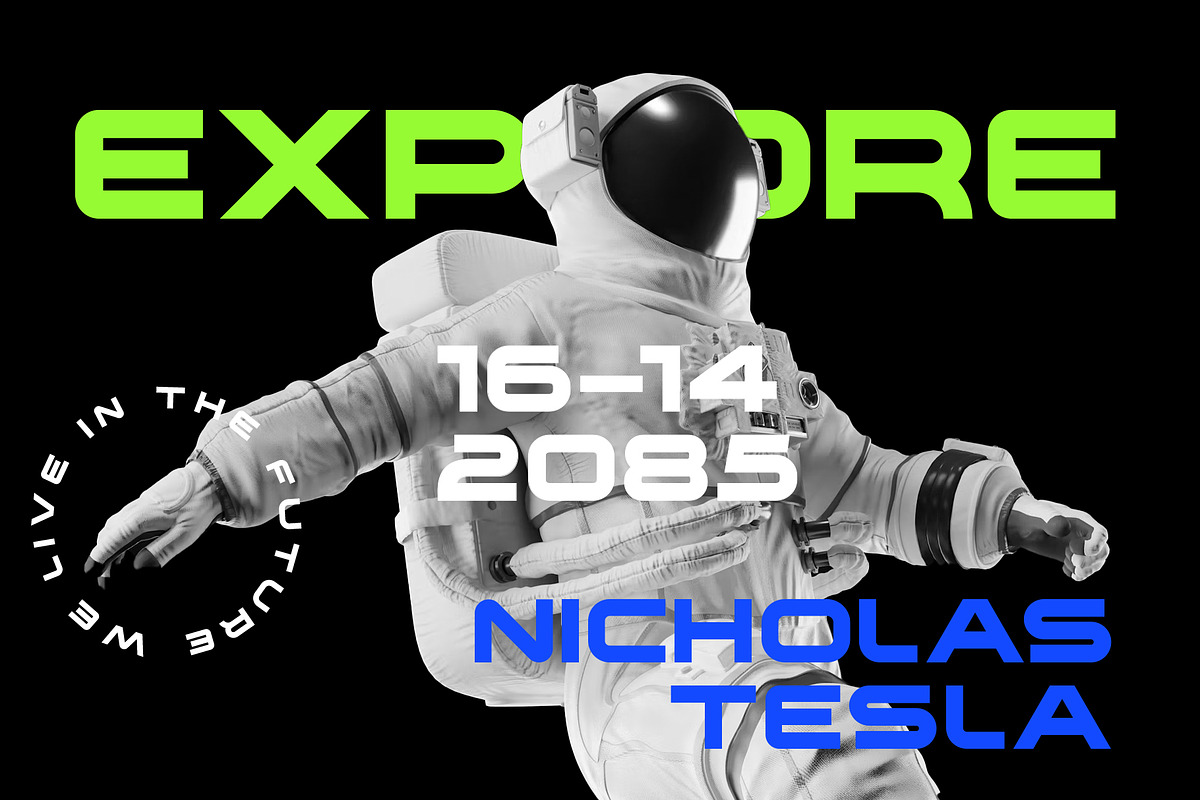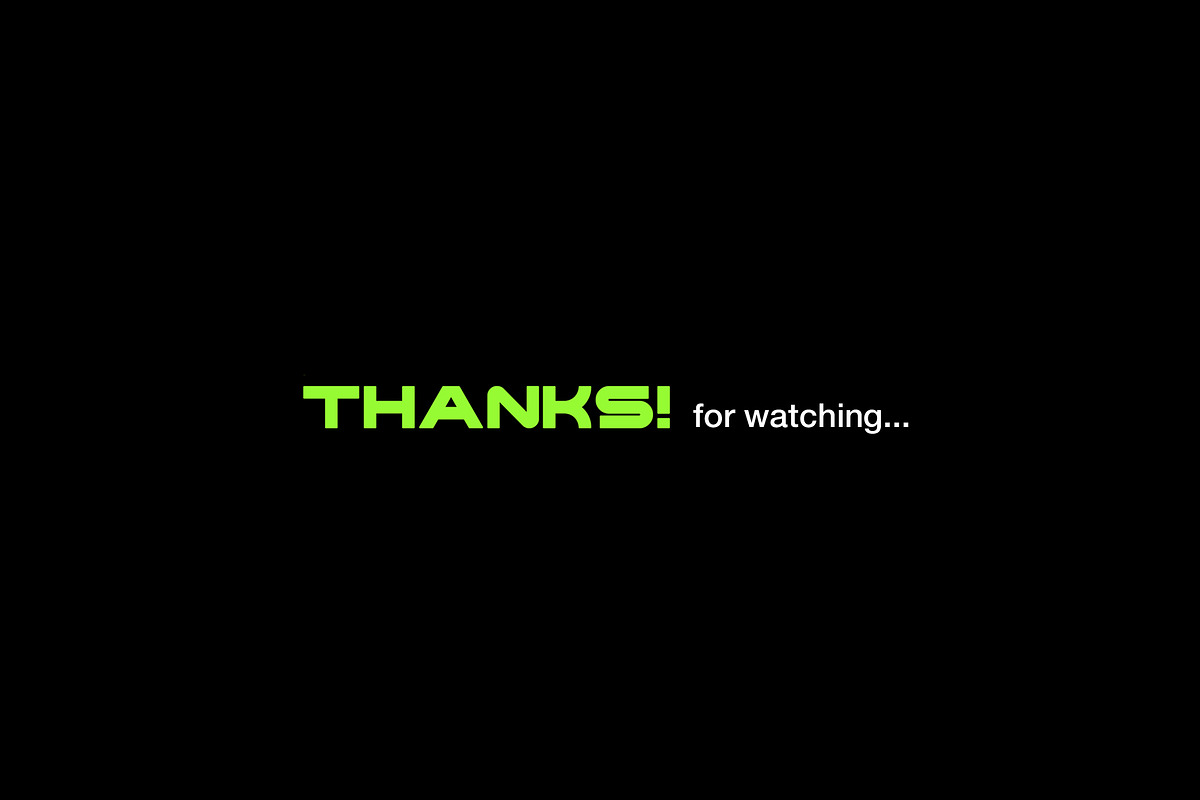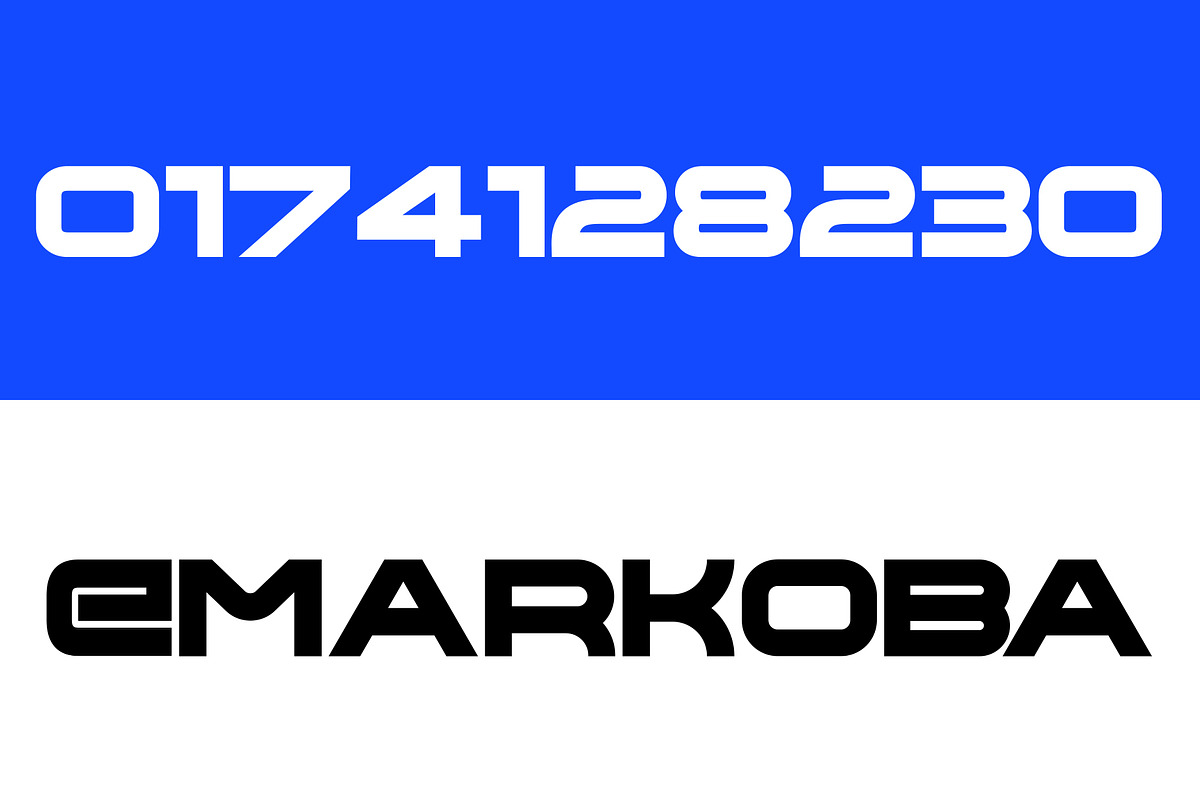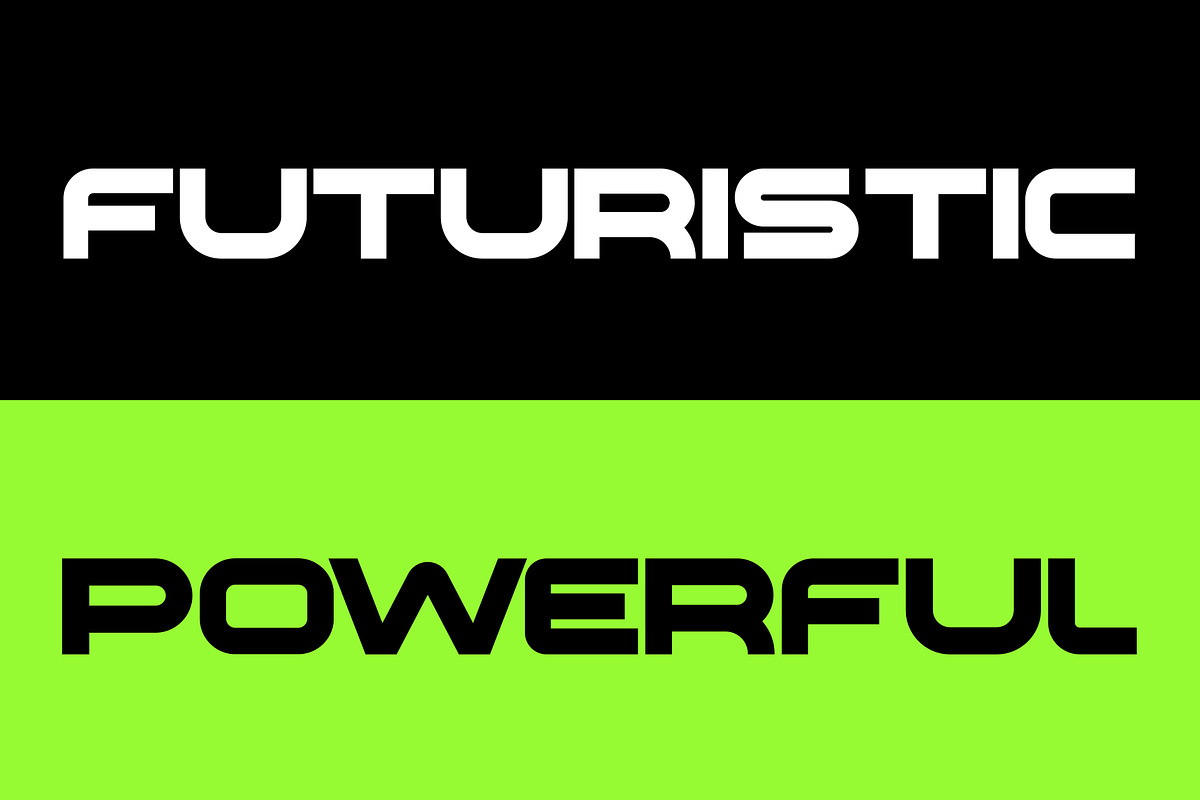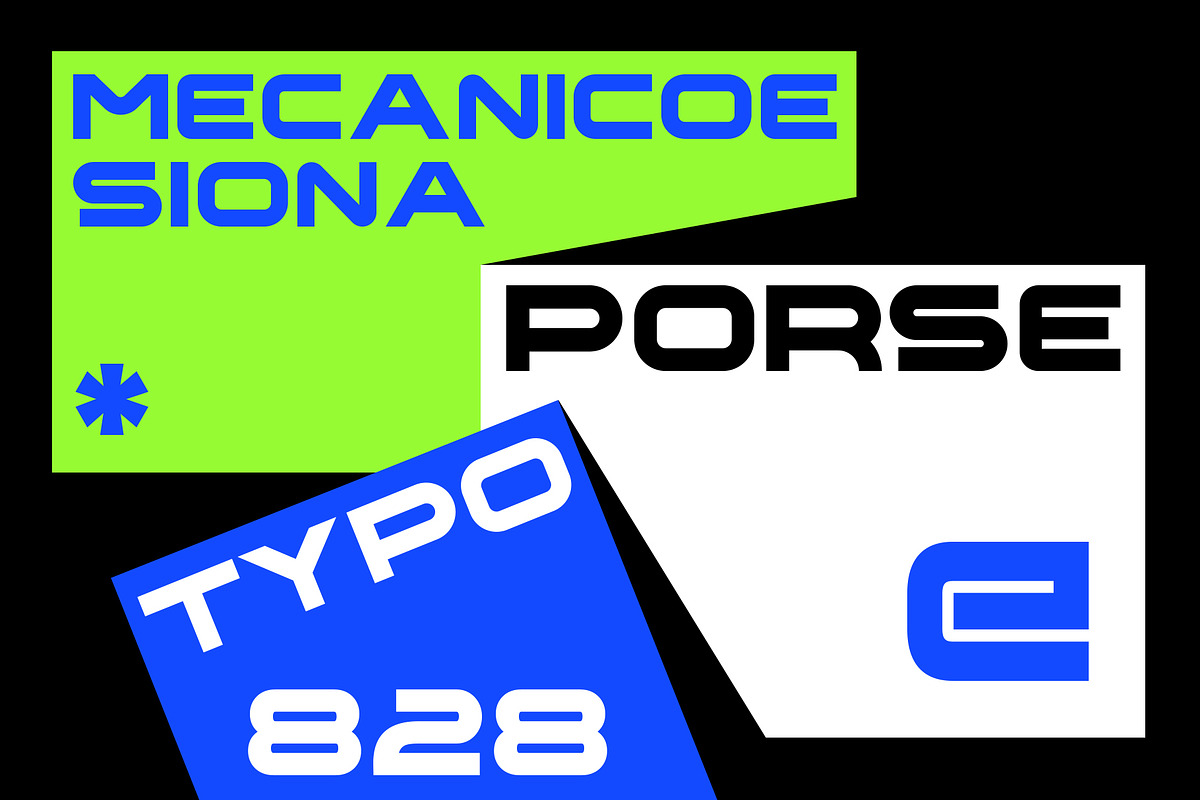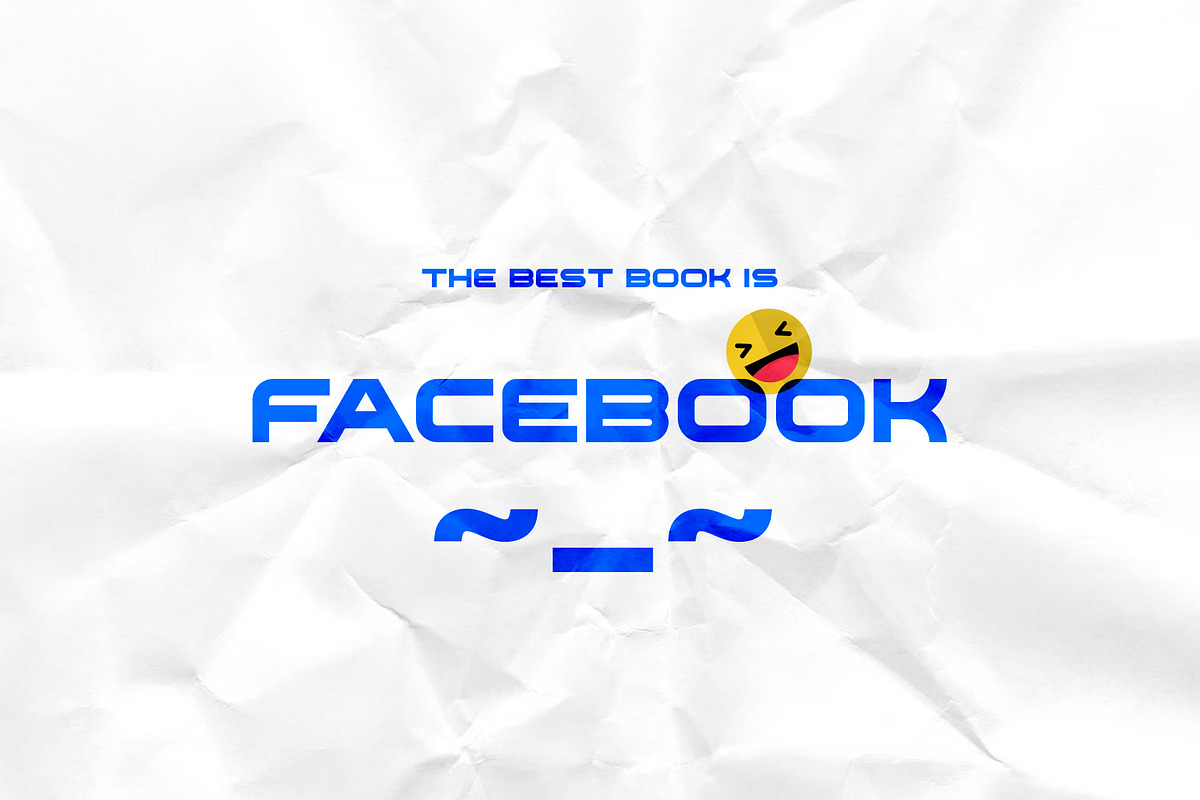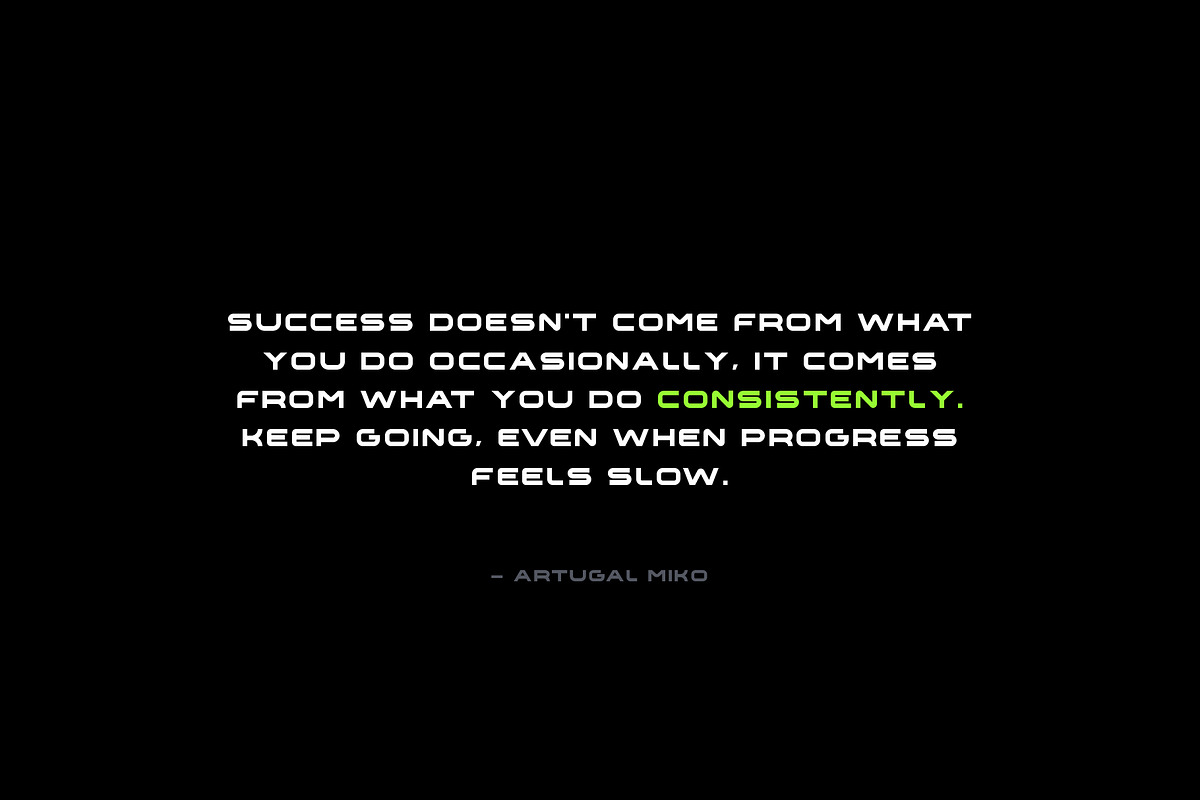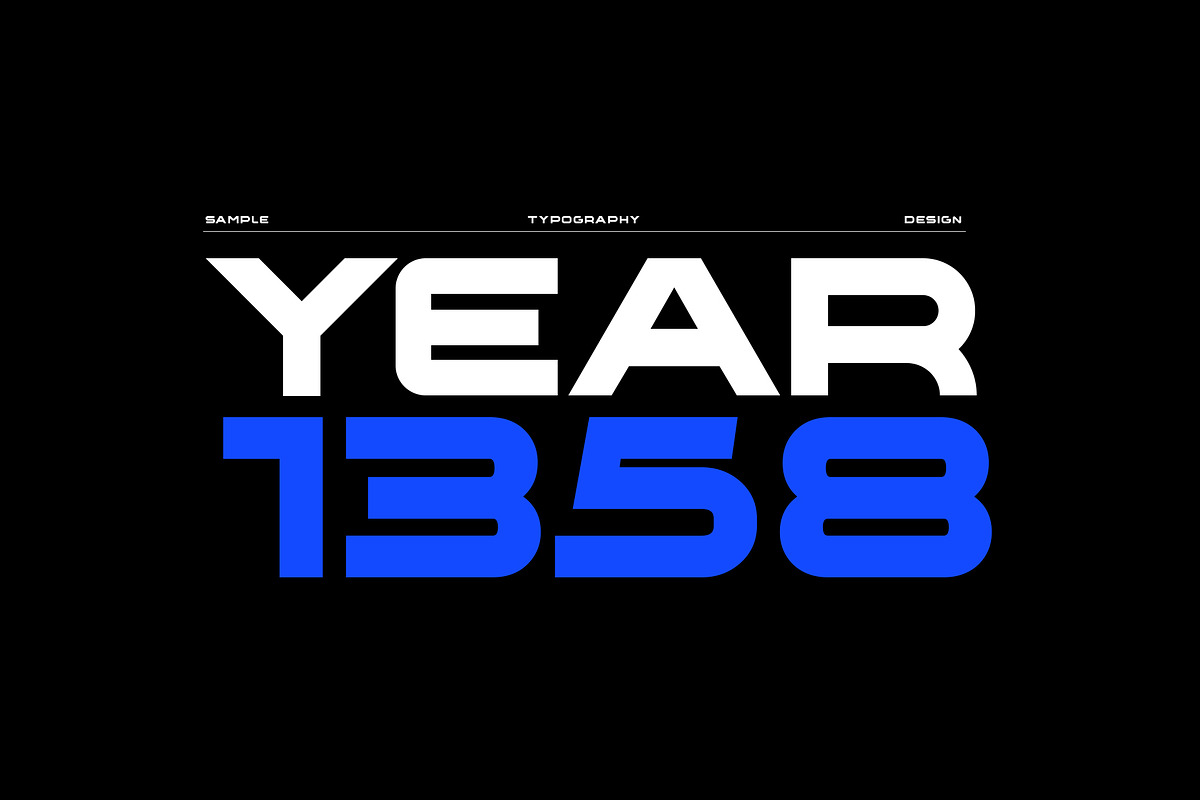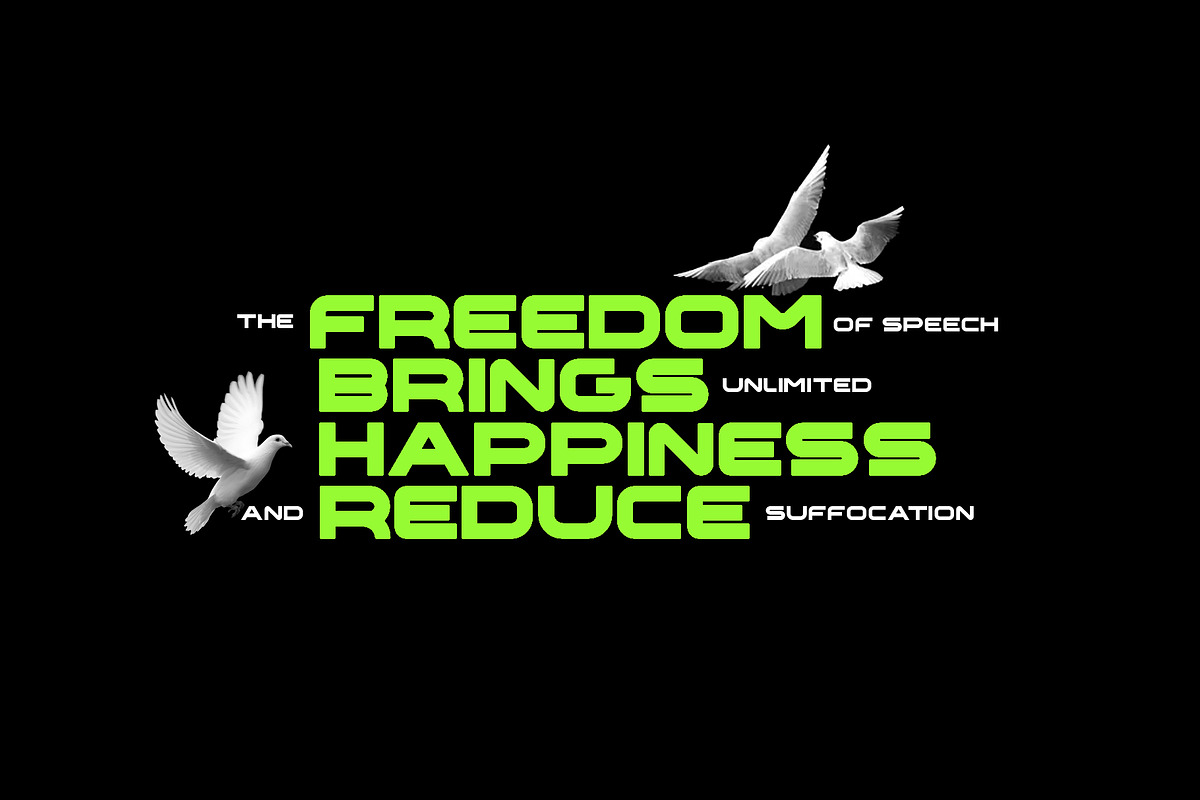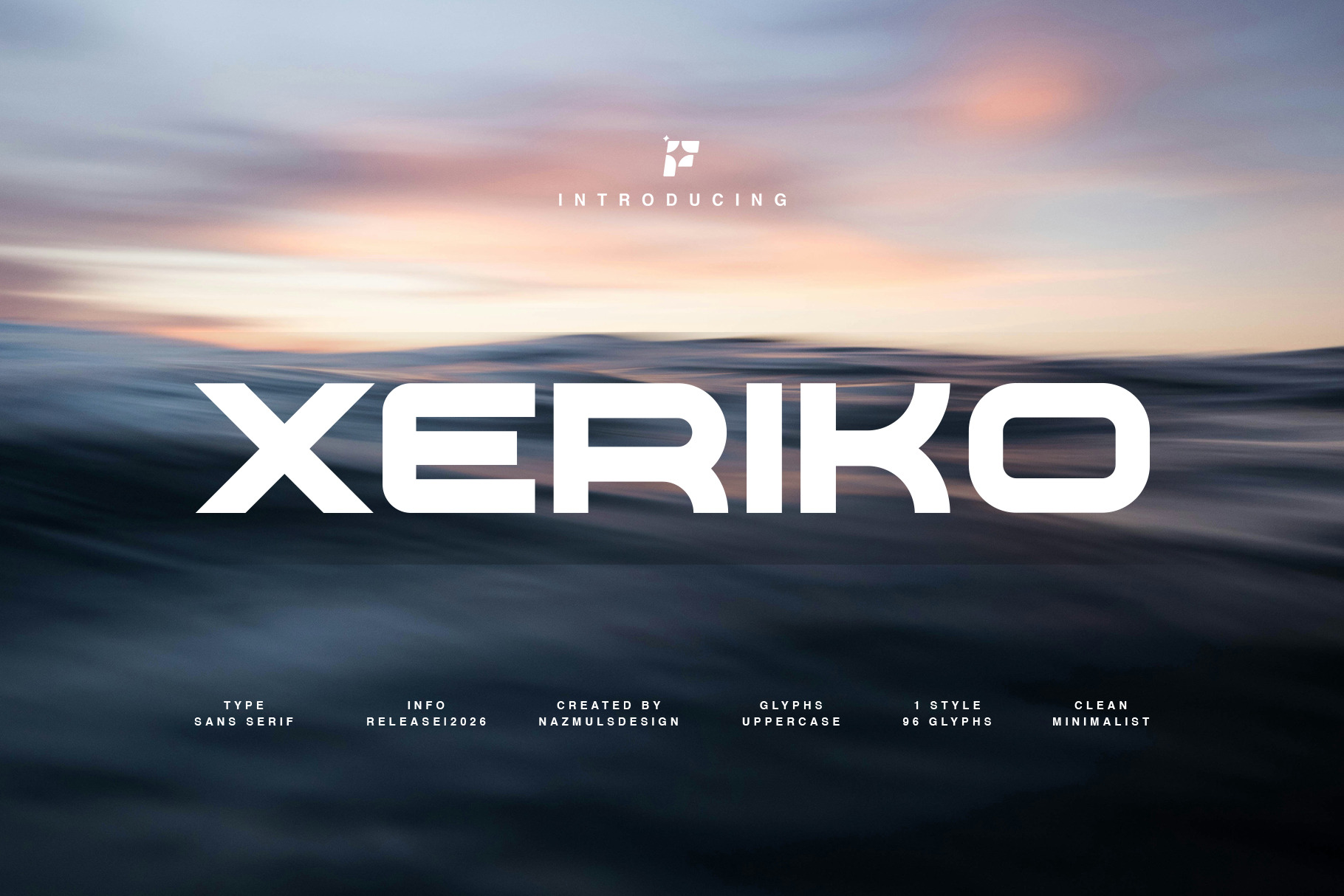
Xeriko | Futuristic Font
Xeriko is a bold leap into the future of typography — a clean, all-uppercase typeface designed for a world that moves fast and thinks even faster. With sharp geometric cuts and sleek sci-fi-inspired forms, it carries a sense of precision, power, and digital elegance.
Every letter feels engineered, not drawn — balancing minimalism with a strong visual impact. Xeriko works perfectly for tech branding, futuristic posters, gaming identities, UI titles, and anything that needs a modern edge that feels ahead of its time.